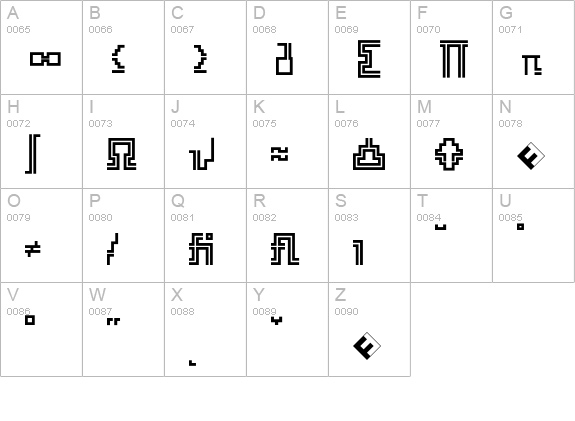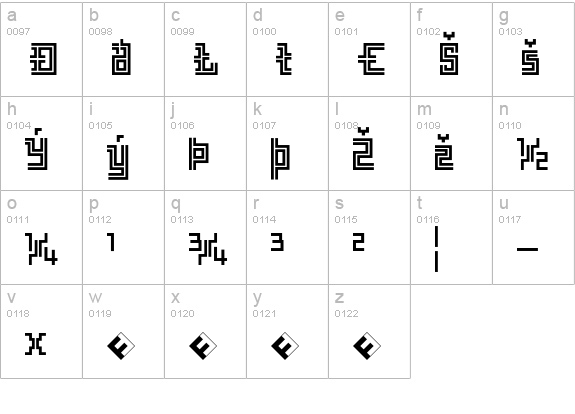
Archian-NightExpert is a sophisticated and modern font that exudes elegance and style. Its sleek lines and sharp angles make it perfect for adding a touch of luxury to any design project. Whether you are creating a logo, poster, or website, this font will make your text stand out and captivate your audience. What sets Archian-NightExpert apart is not only its striking appearance but also its versatility. It can be used for both headlines and body text, making it a truly versatile choice for any project. The font is easy to read and commands attention, making it ideal for grabbing the viewer's eye. Best of all, Archian-NightExpert is available for free download at FontsMarket.com. So you can add this stunning font to your collection without breaking the bank. Don't miss out on the opportunity to elevate your designs with this exceptional font - download Archian-NightExpert today and let your creativity shine!